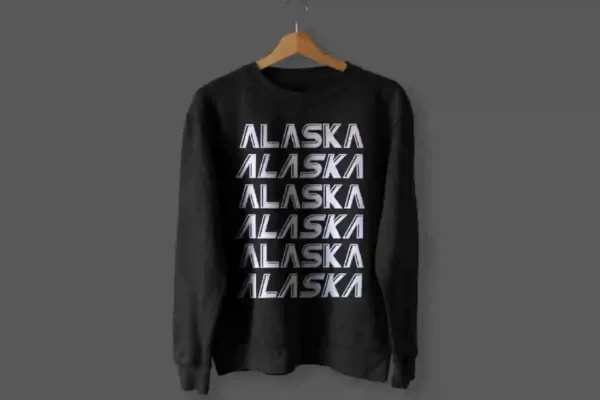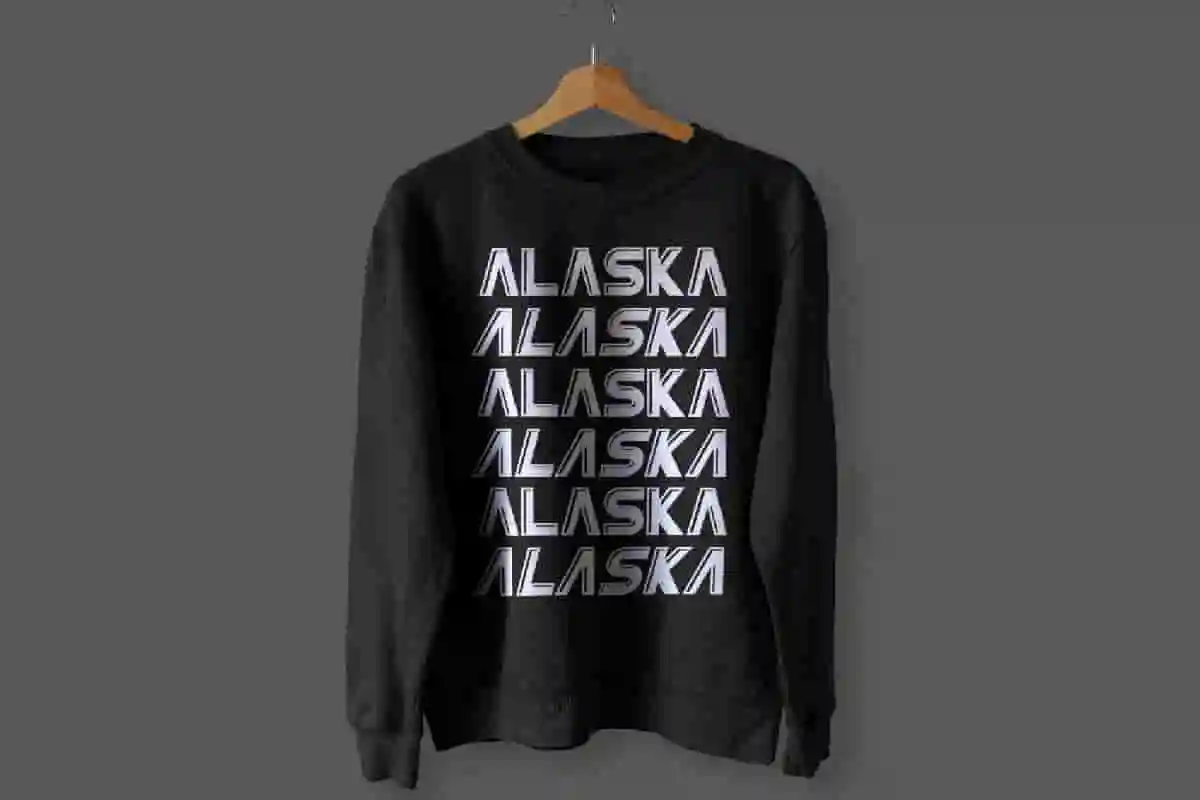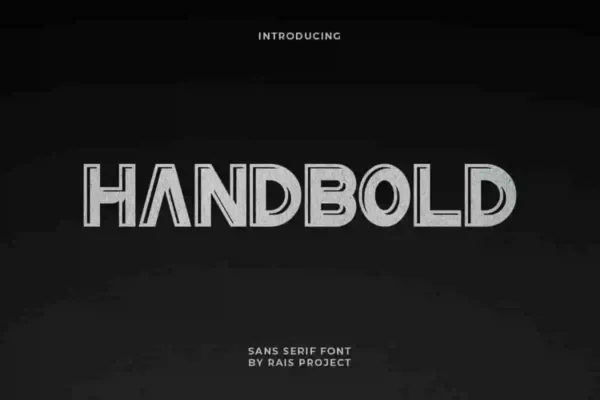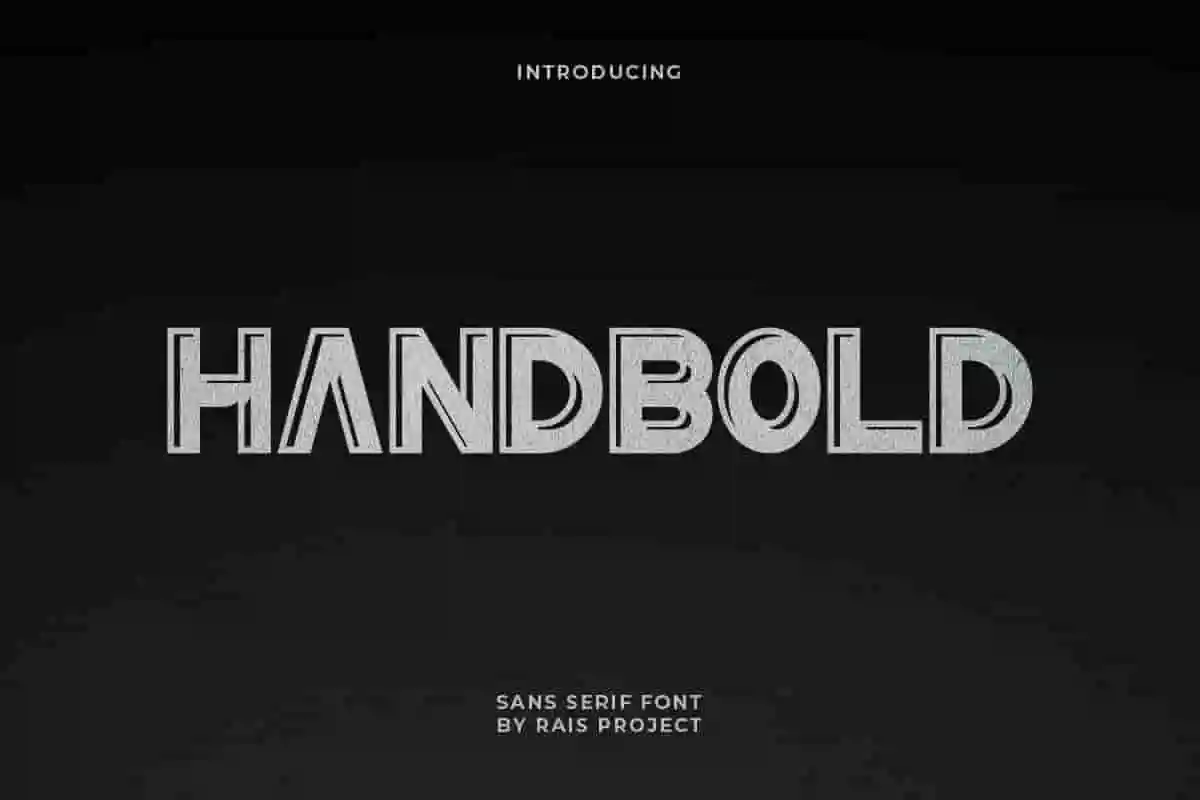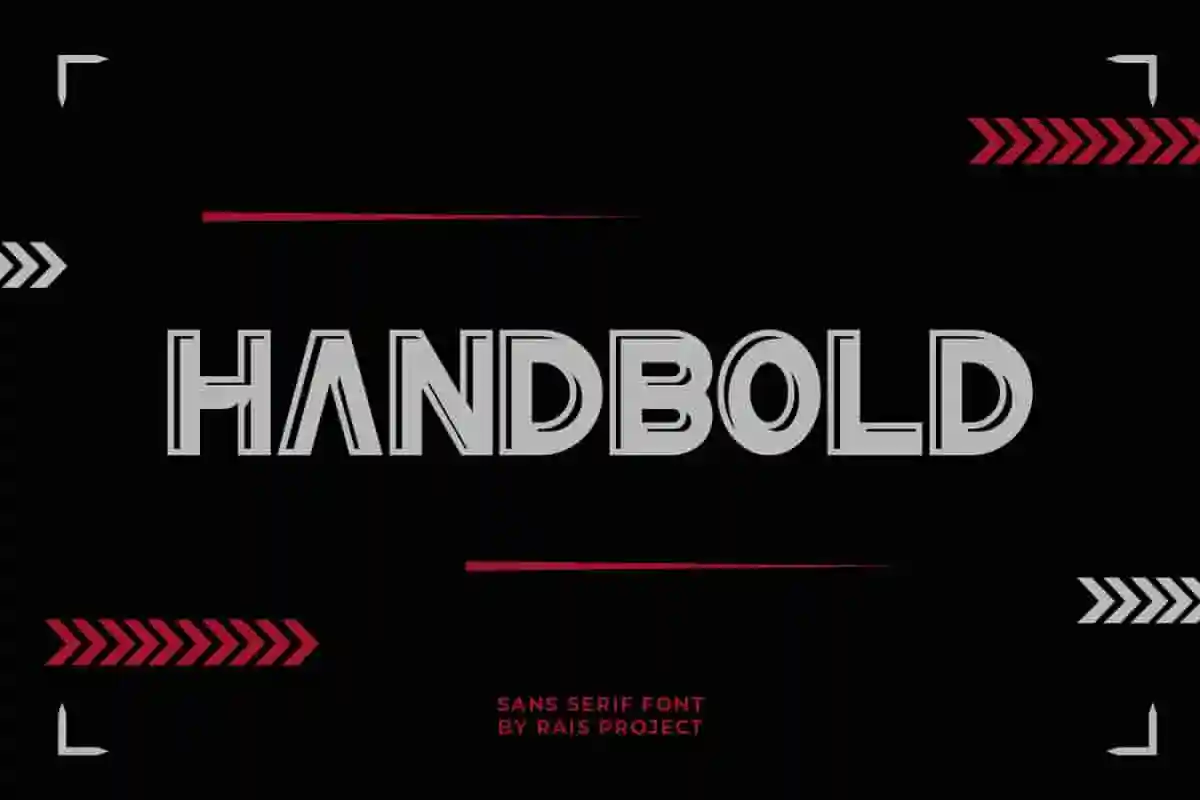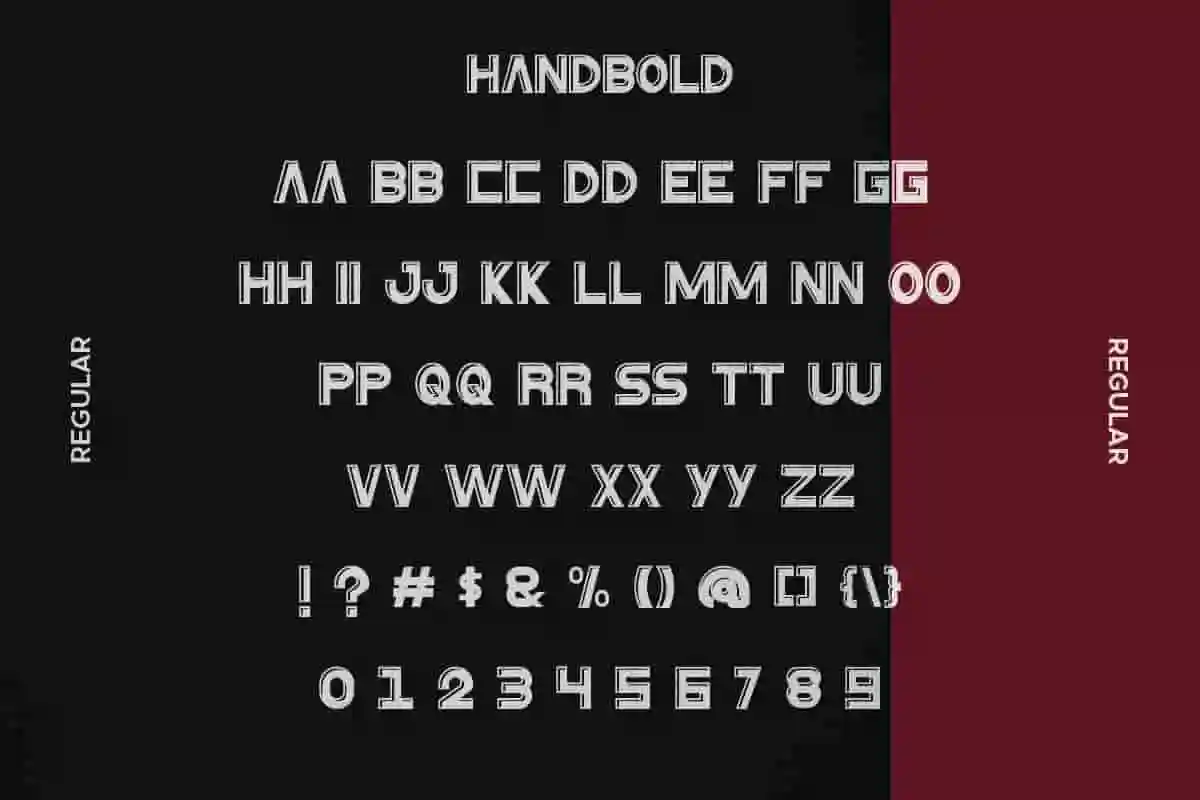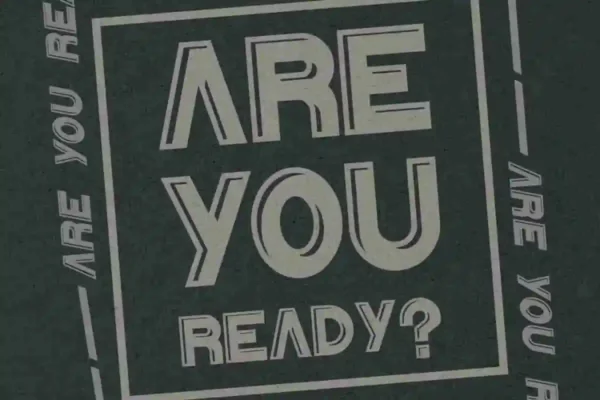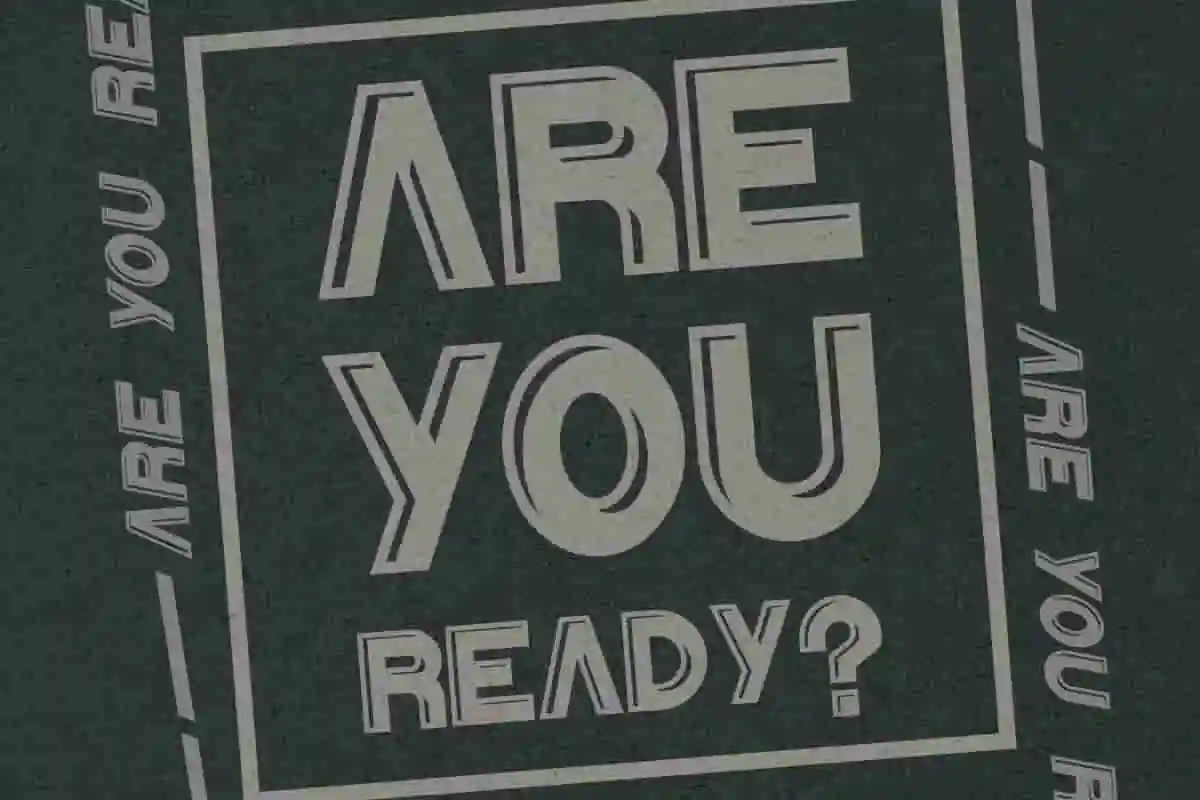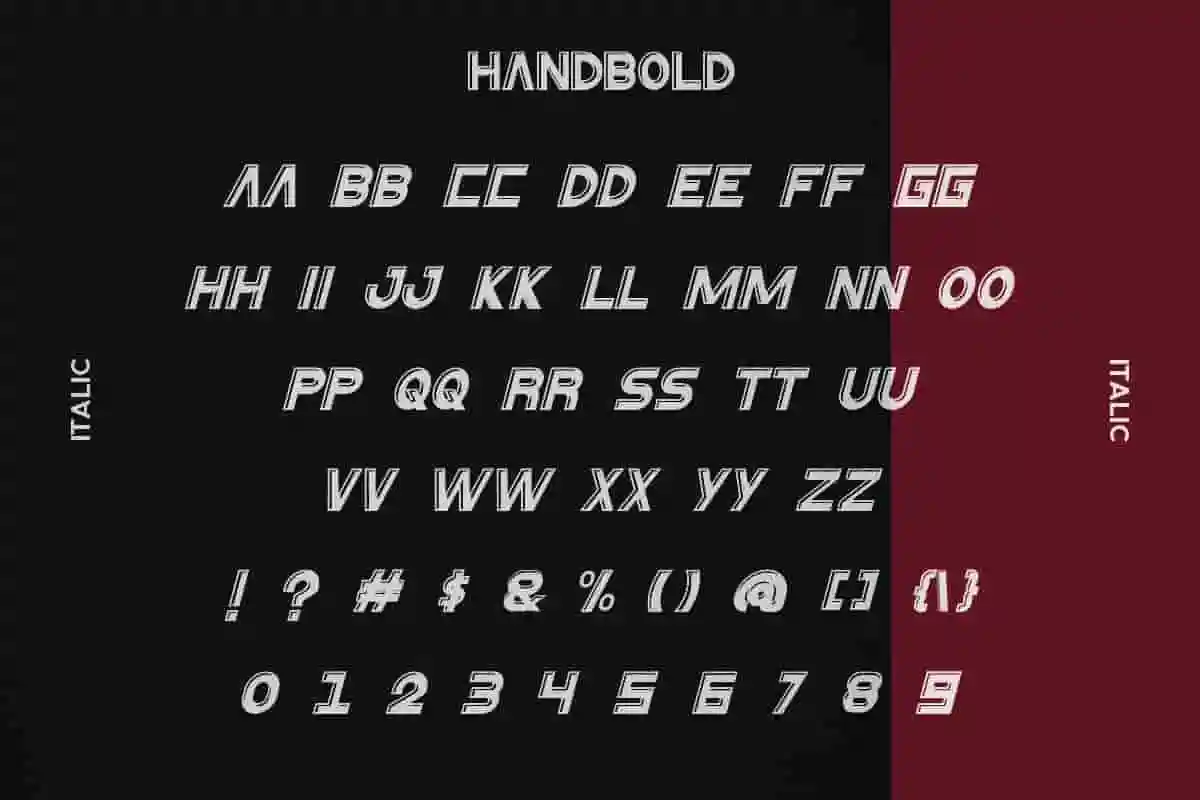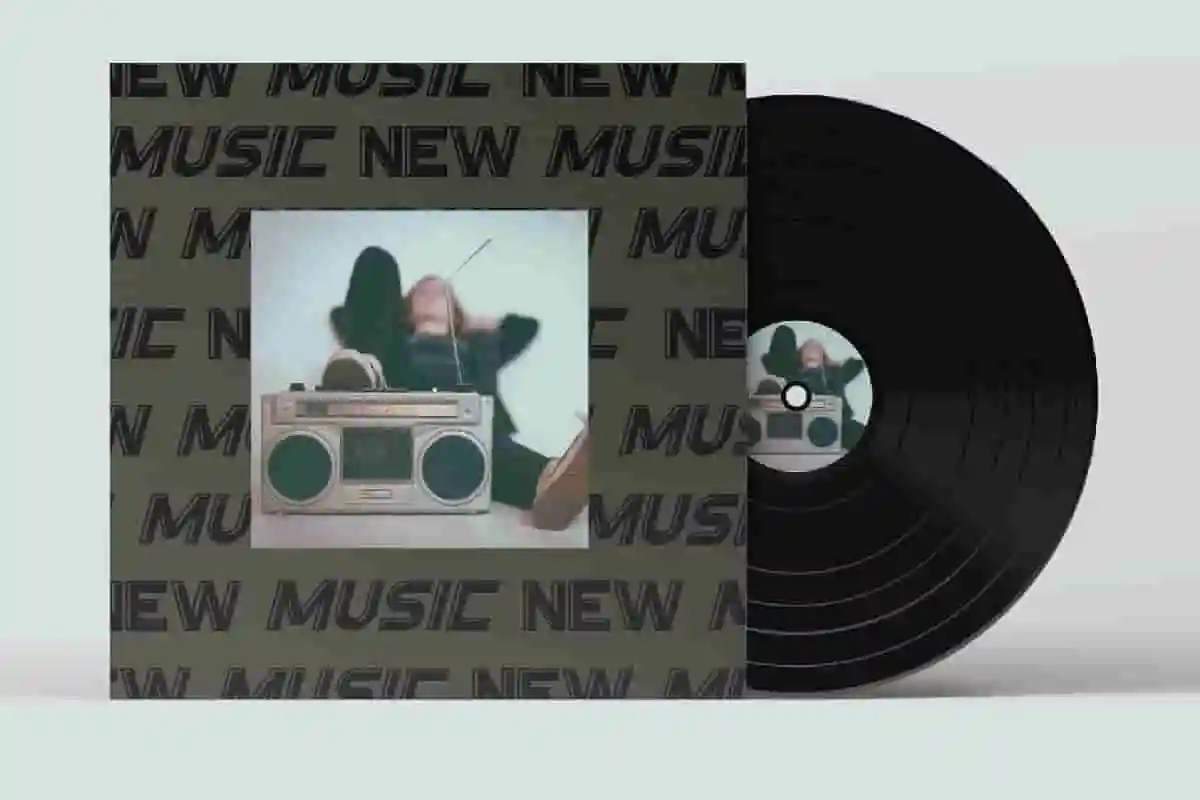
HanBold Sans Serif Font
HanBold Font is a display decorative sans serif font family, designed by Rais Project. The font has two different styles that great for Cosmetic, Beauty, Technology, Game, Magazine, Music, Sport etc
HanBold Font is a display Sans Serif futuristic font family, designed by RaisProject. It is our new font on the market. It has clean, modern and stylish style. You can see the demo font below. You can also input any word you want so you can see what it will look like :
HanBold Font remotely made by RaisProject team in Indonesia. The font handcrafted for any your special projects including : headlines, promotion, events, branding, advertising, magazine, signage, invitation, stationery, social media posts, label, or and any projects that need unique strong style. The industries for this font Startup, Automotive, Apps, Cosmetic, Beauty, Technology, Game, Magazine, Music, Sport etc HanBold Sans Serif Font.In total, HanBold has two different styles : Reguler and Italic. On the package You will get: